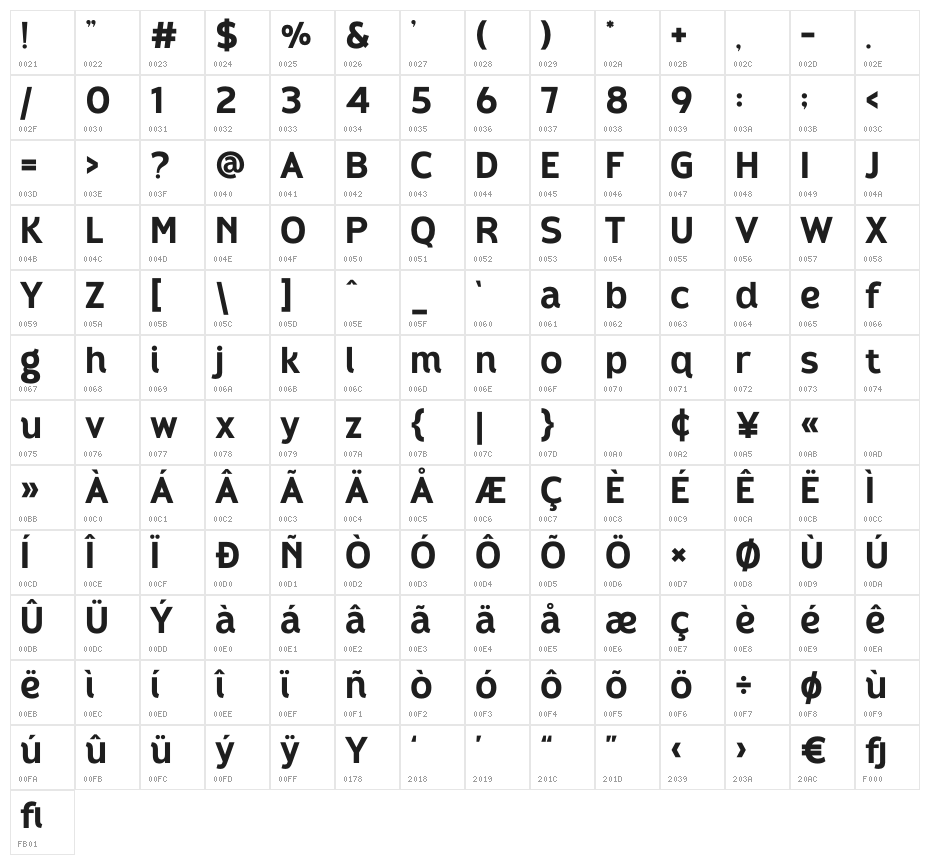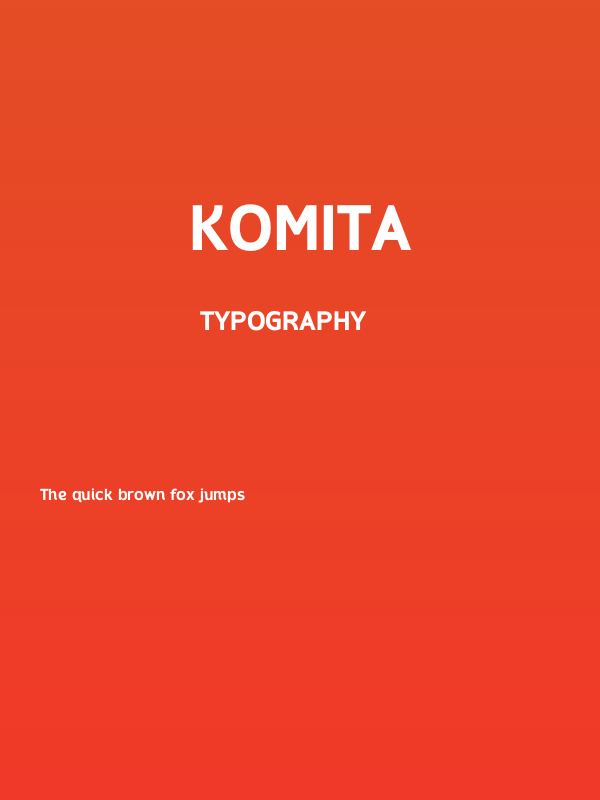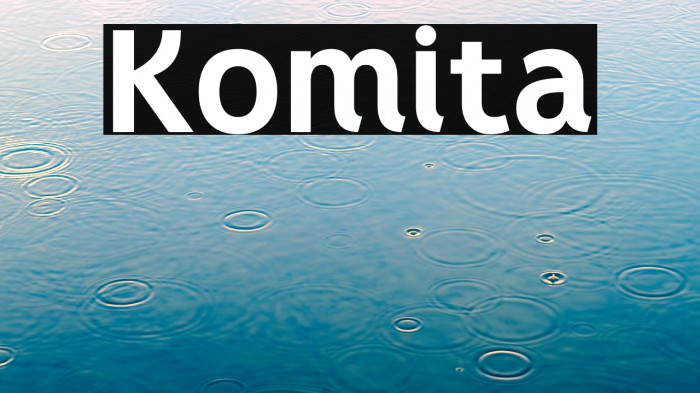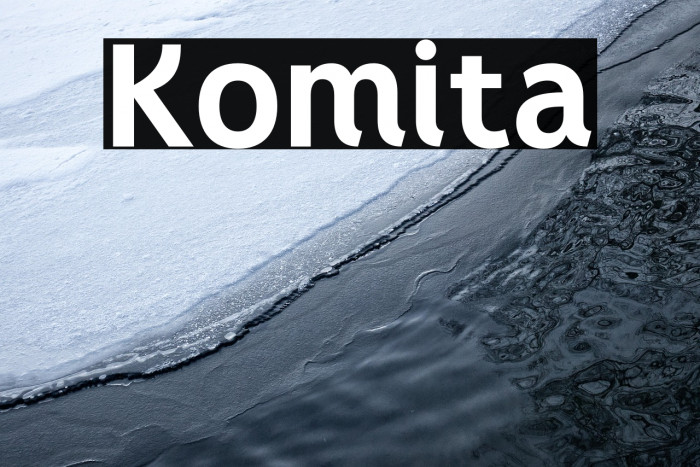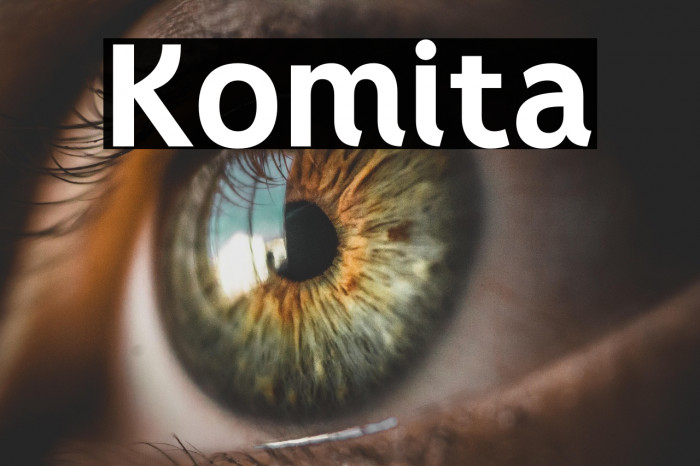
Komita Font
Komita Description
This font features a clean and modern sans-serif design, characterized by its bold and uniform stroke width. The uppercase and lowercase letters maintain a consistent height and width, providing a balanced and harmonious appearance. The numerals are clear and easily distinguishable, making them suitable for various applications. The special characters are well-integrated, maintaining the overall aesthetic of the font. Its simplicity and clarity make it versatile for both digital and print media.
| Use Case | Headlines, Logos, Web design |
| Proposed Projects | Ideal for branding, advertising, web design, and editorial layouts due to its clarity and modern appeal. |